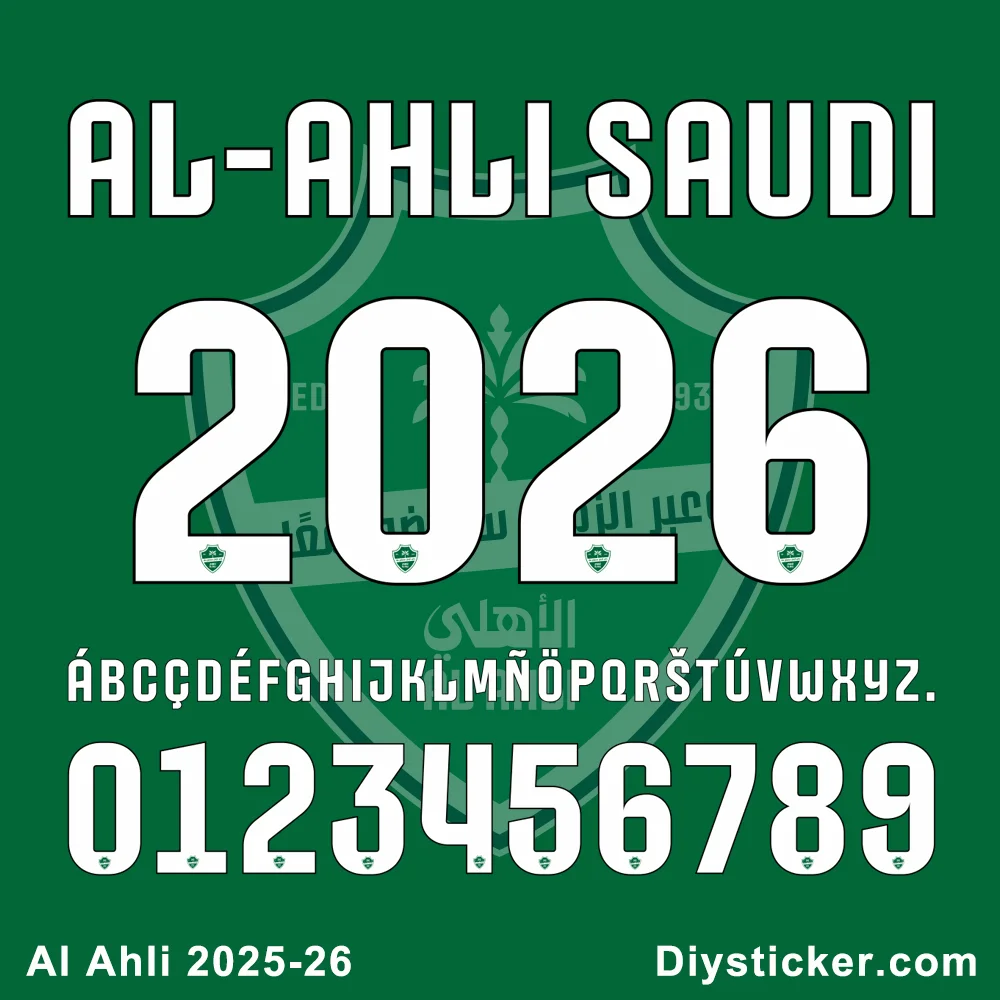
Represent one of Saudi Arabia’s most prestigious clubs with the official Al Ahli Saudi 2025-26 Font. This is the authentic typeface used by the Jeddah-based club on its official kits, Saudi Pro League graphics, and all communications for the new season.